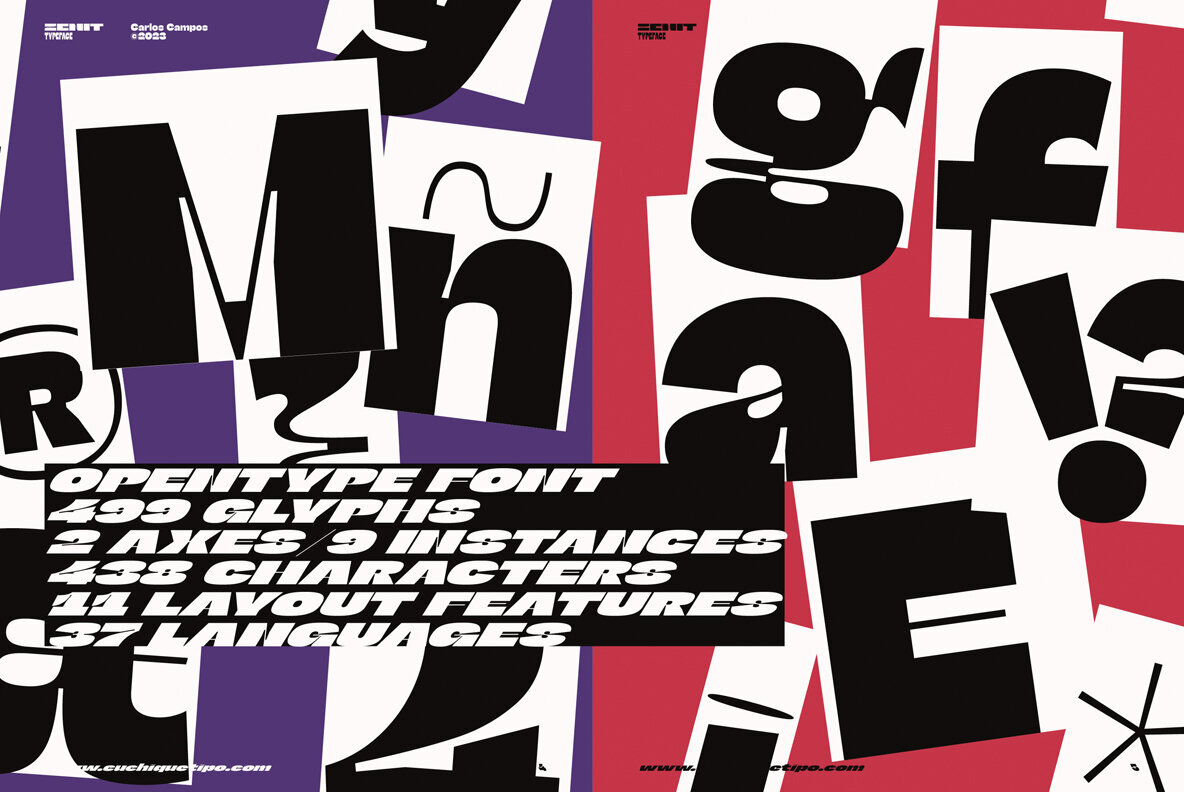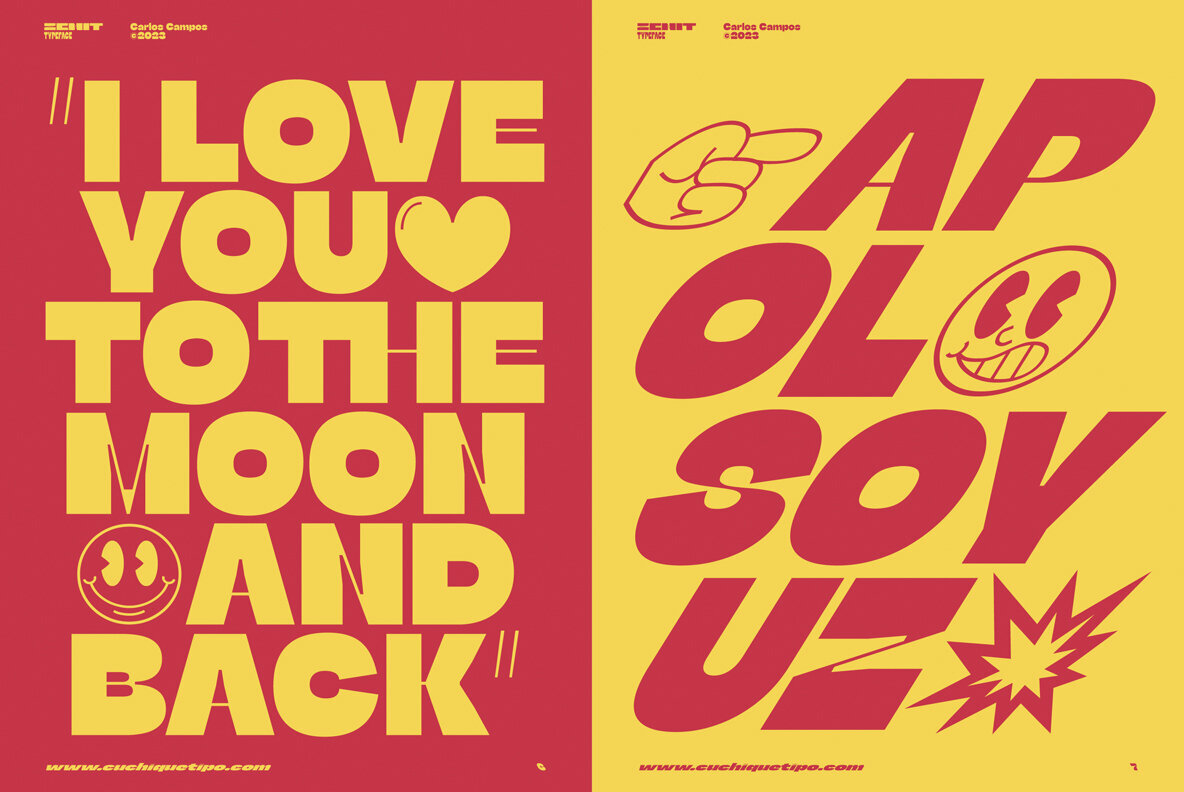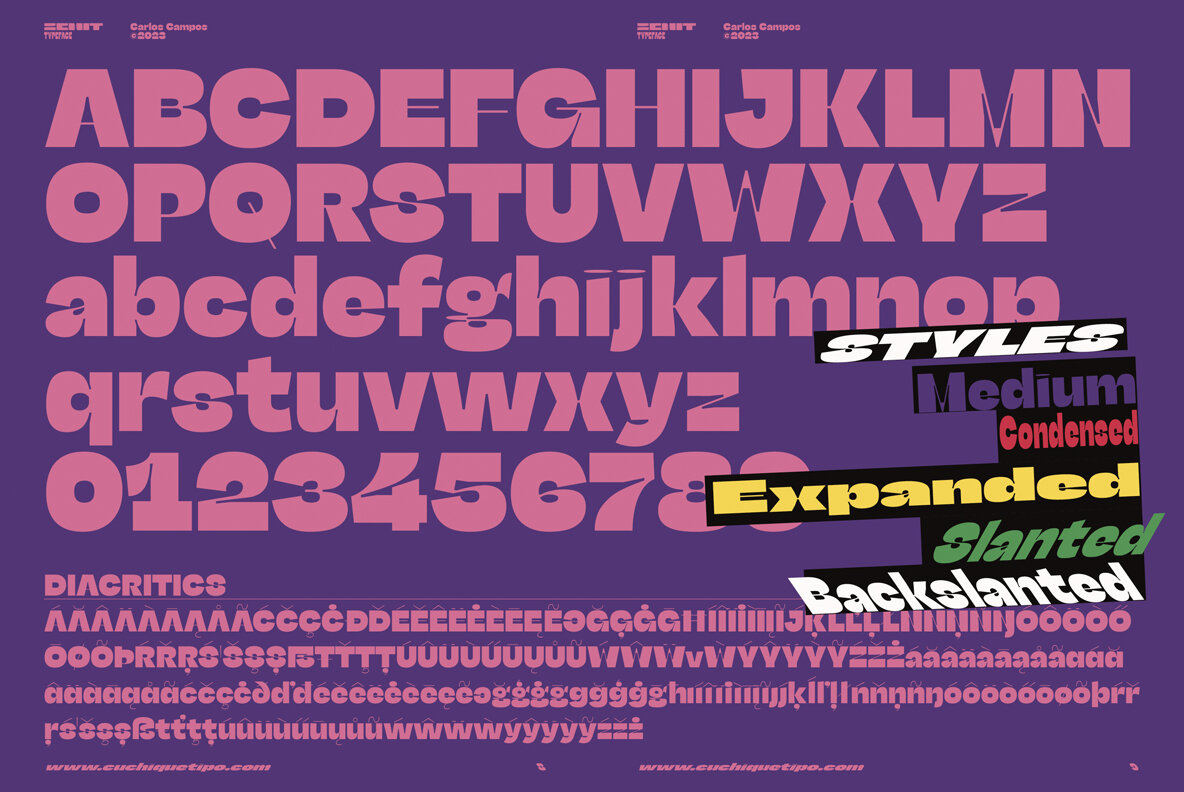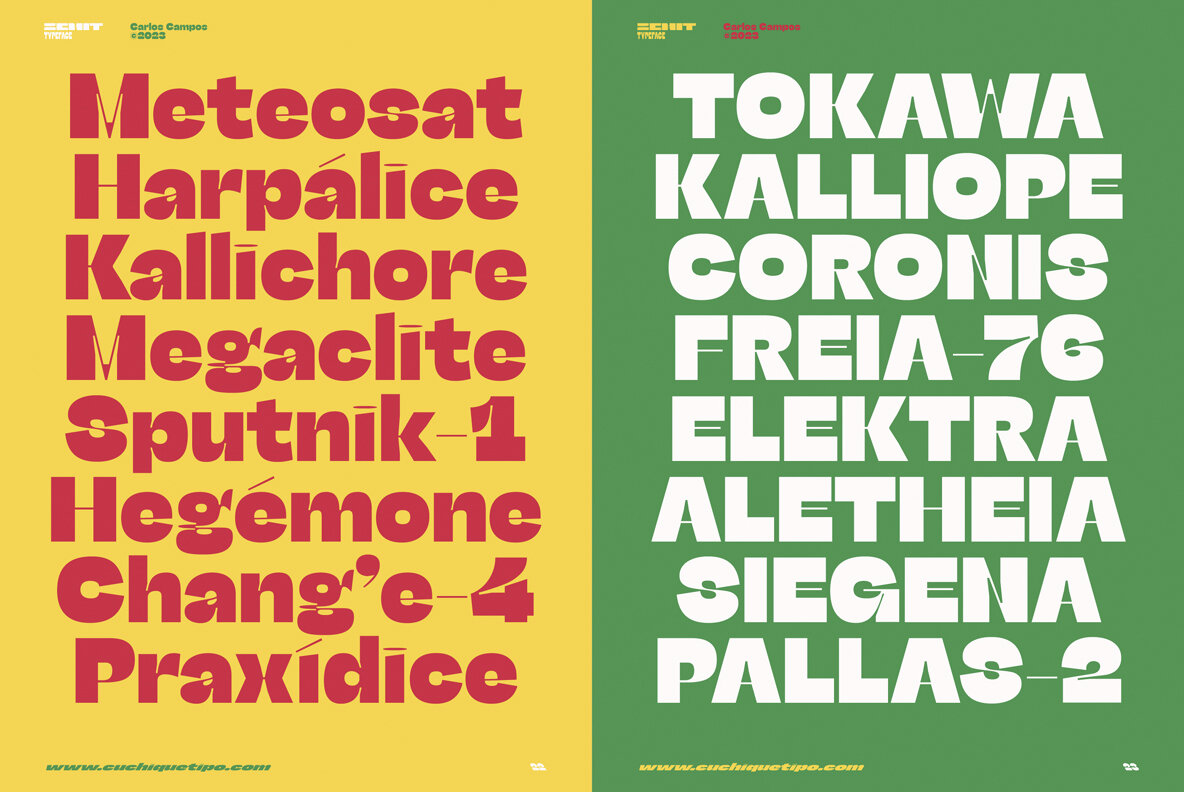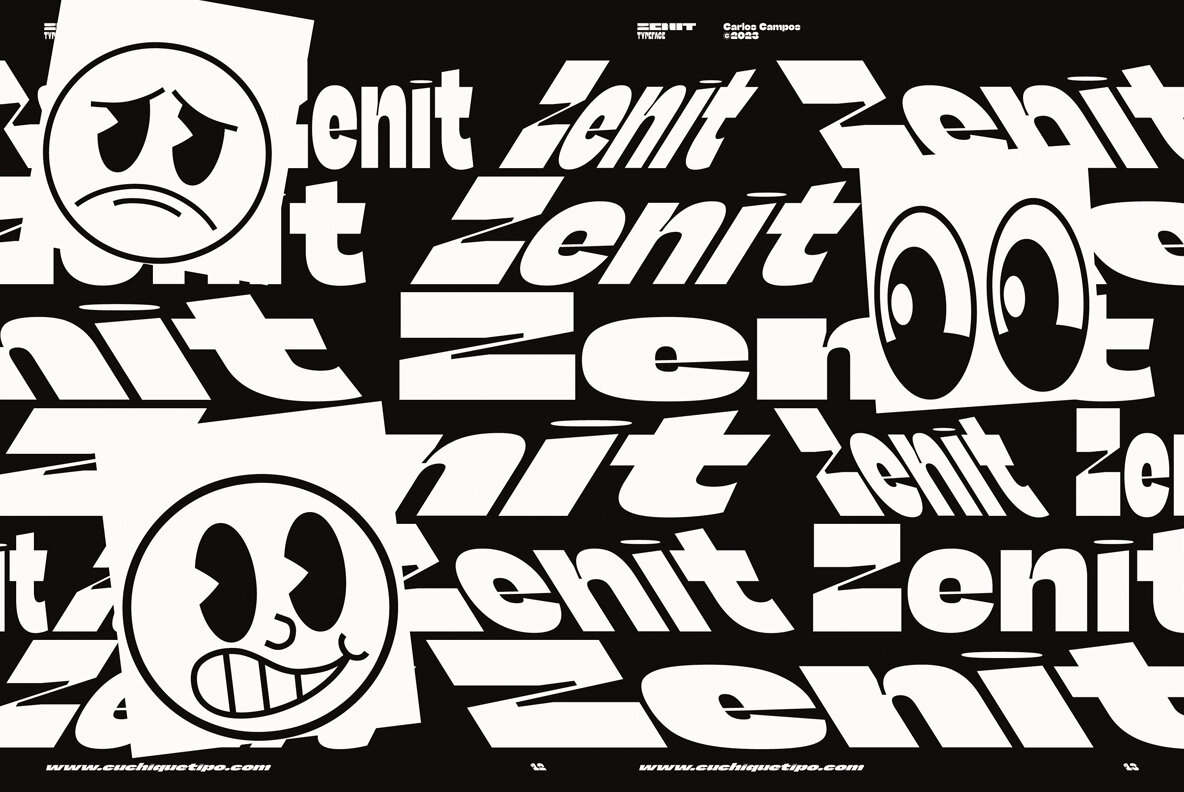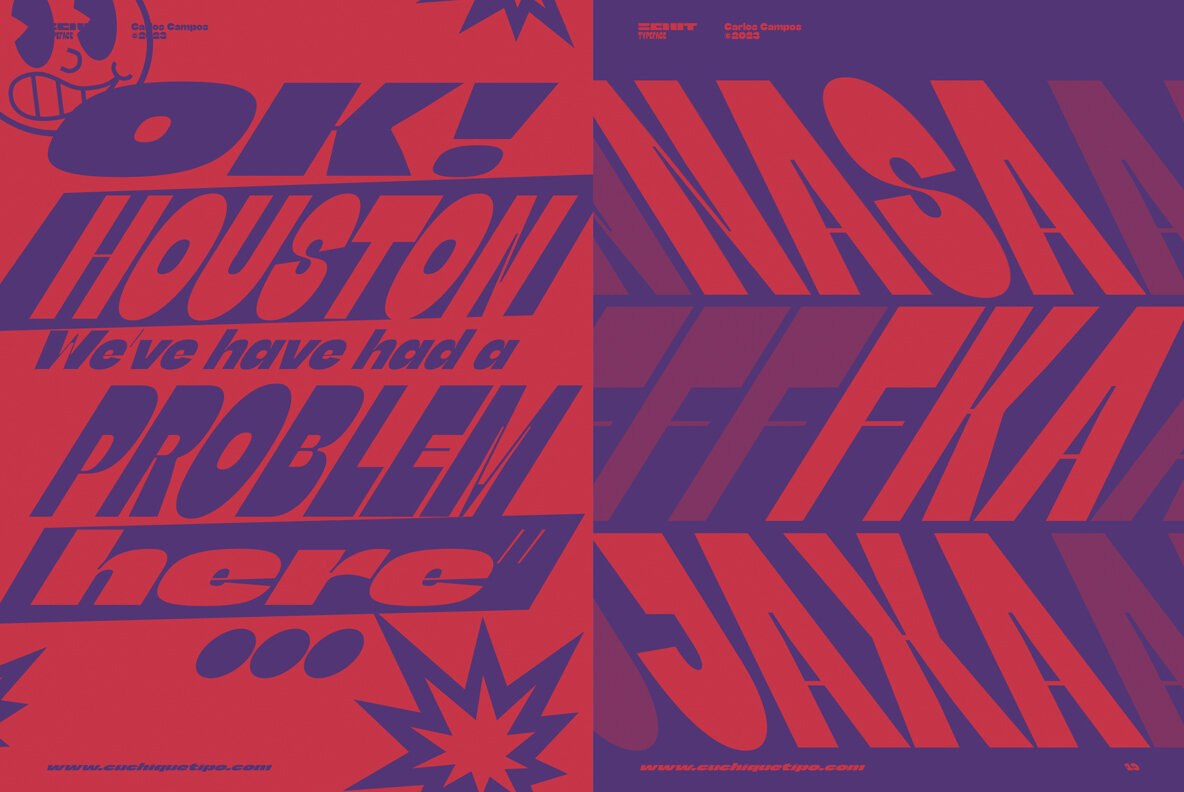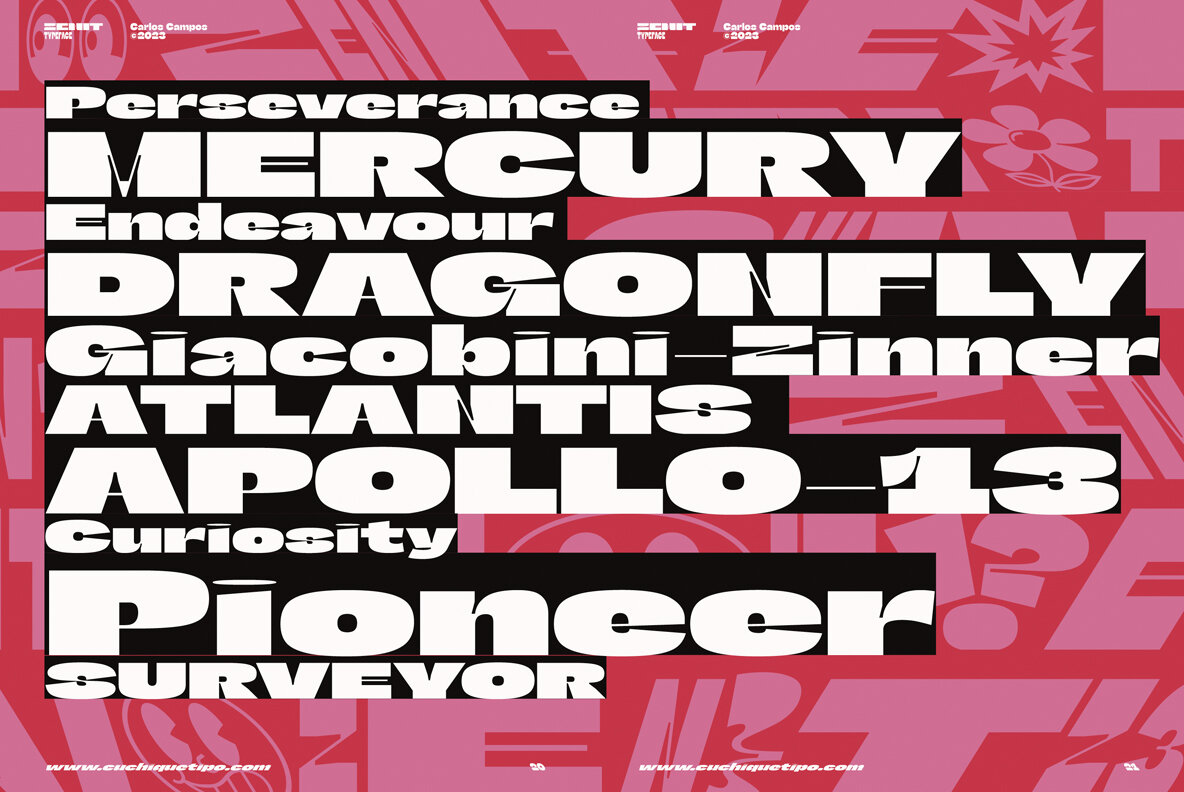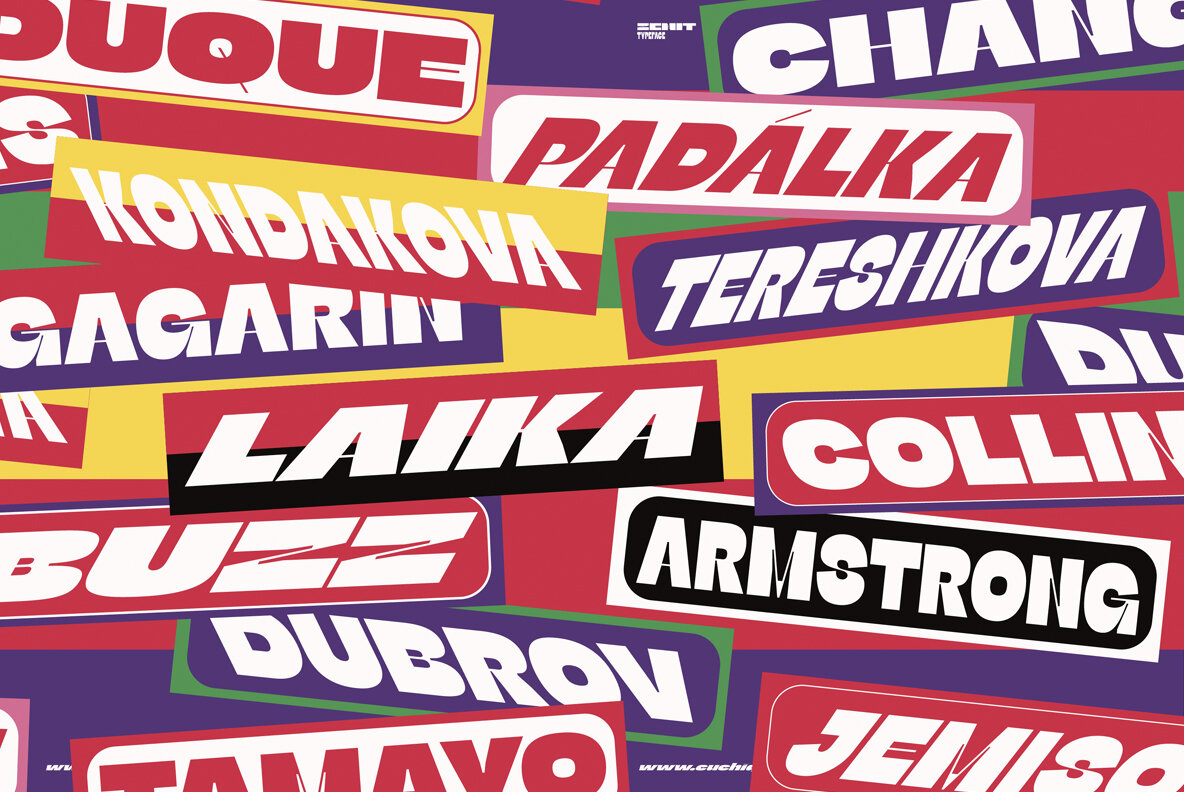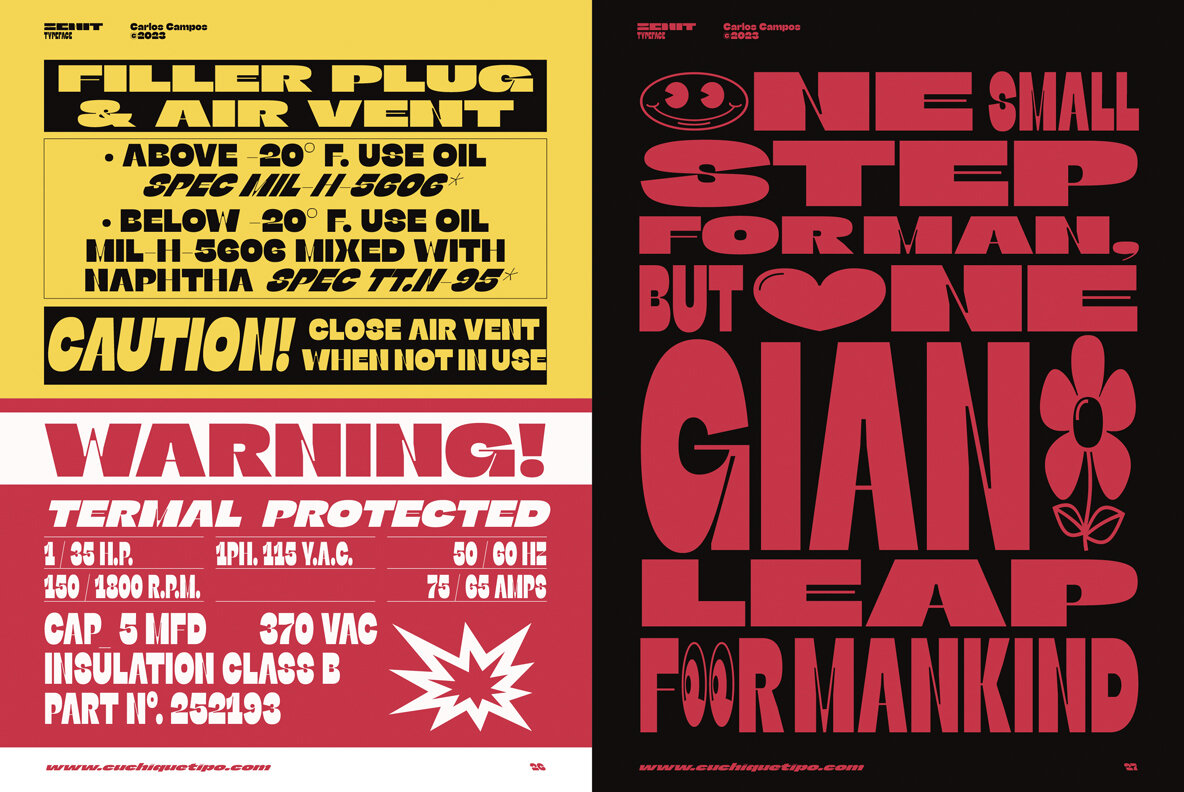
Zenit Font
As "Zenith" means, in an astronomical context, the highest point reached by a celestial body, my new typeface raises its drawing for carry it to the highest expression.
In an effort to design a singular graphic and visual letters system, the contrasts and proportions of “Zenit” boosts up and are squeezed as much as possible, resulting in a very particular aesthetic, while still maintaining a certain grotesque reminiscence.
Given its dynamic, postmodern, daring and futuristic style, “Zenit” is an ideal typeface for use in designs that want to discover new space worlds full of color and speed, still unexplored.
“Zenit, the typeface that rockets you!.”